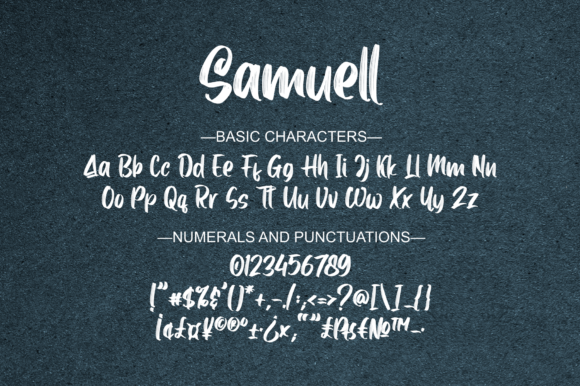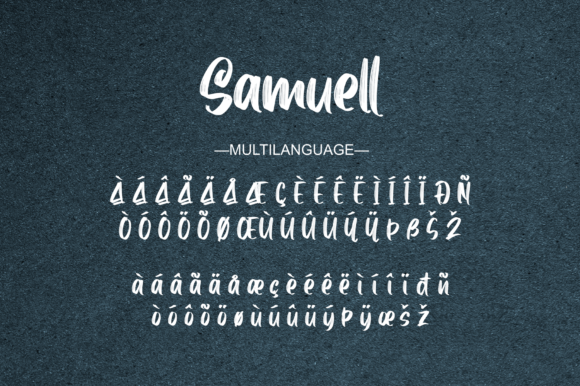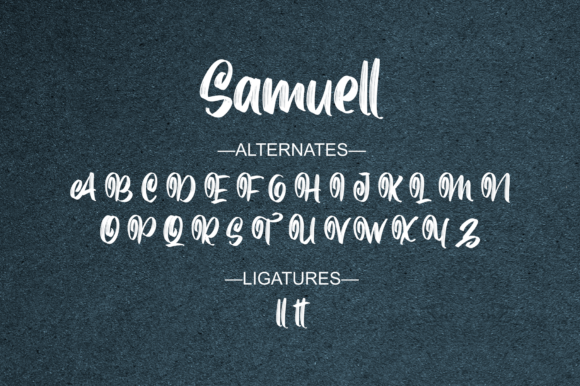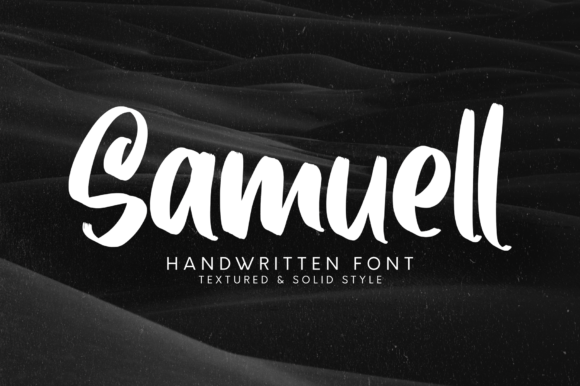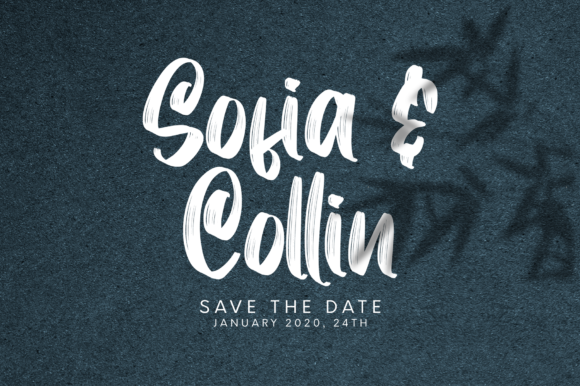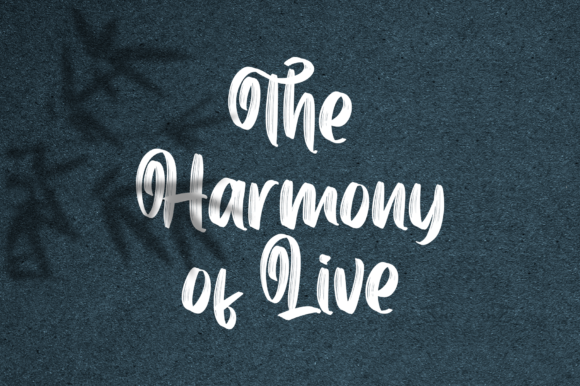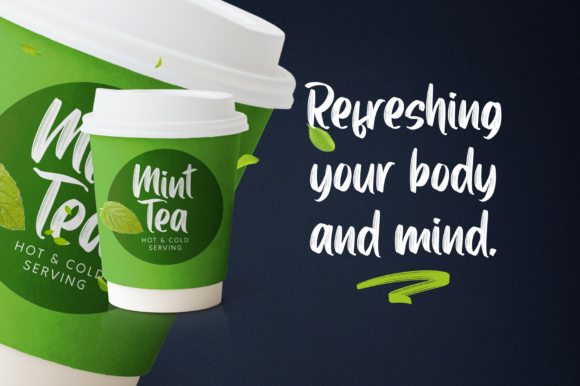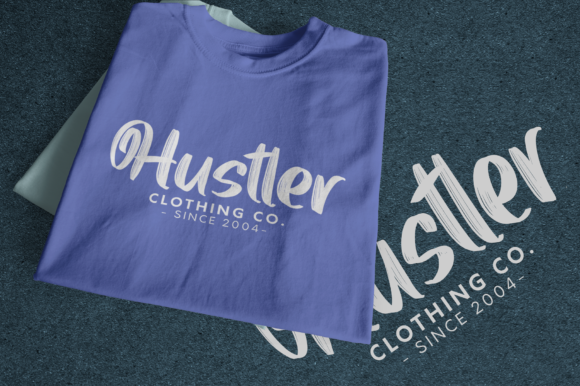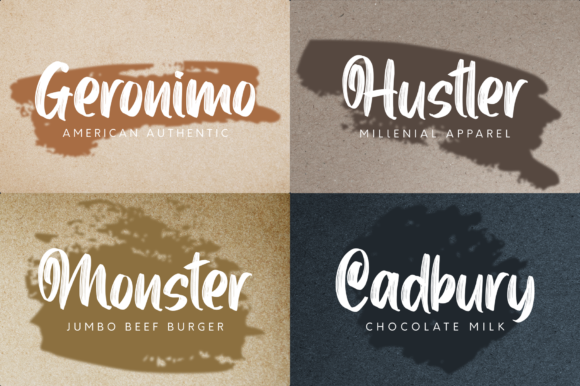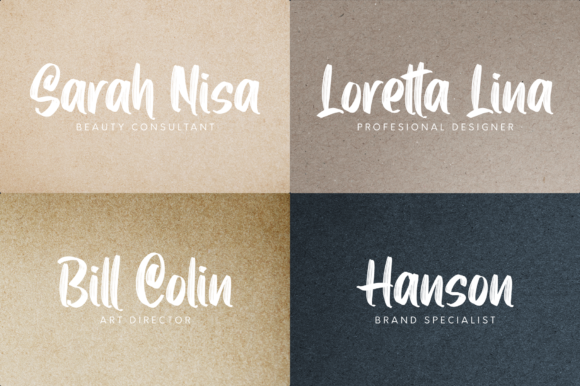
Samuell Font
About Samuell Font
Samuell is a gorgeous handwritten font that will turn any design project into a standout. Fall in love with its modern feel, and turn any design project into a true standout!